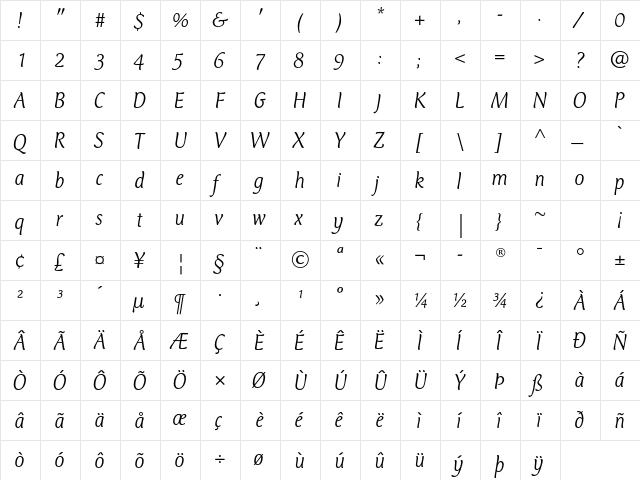
Mercurius CT Std Light Italic Font Preview
| Designer | Adrian Williams |
Design Context for Mercurius CT Std Typeface
Mercurius CT Std takes a measured approach to typography — its balanced proportions and neutral character make it a reliable workhorse for both digital and print work. Its italic angle brings a sense of urgency and motion to the letterforms. Its slender proportions lend an understated elegance to any composition.
Pro Tip: Use Mercurius CT Std for emphasis, pull quotes, and subheadings where its slanted energy can add rhythm to the layout.